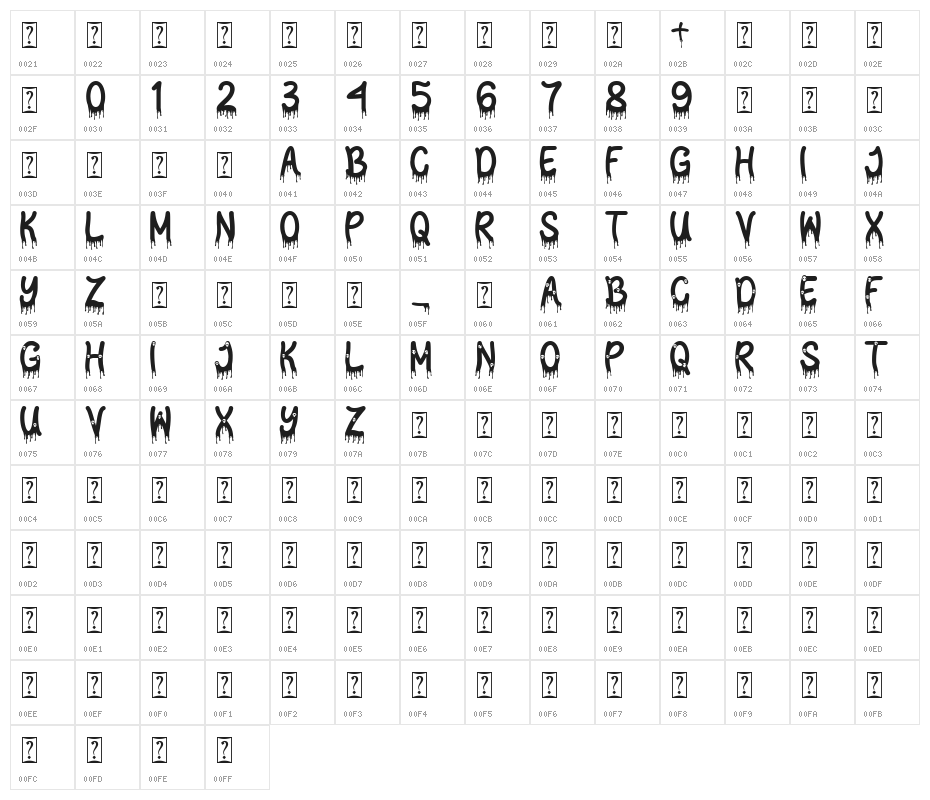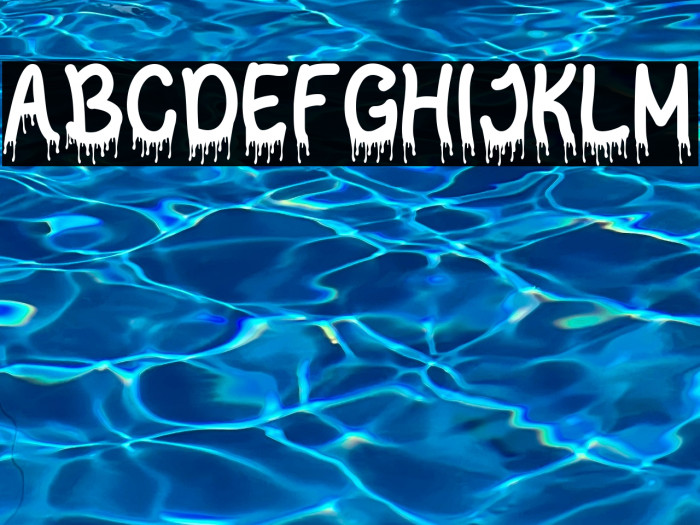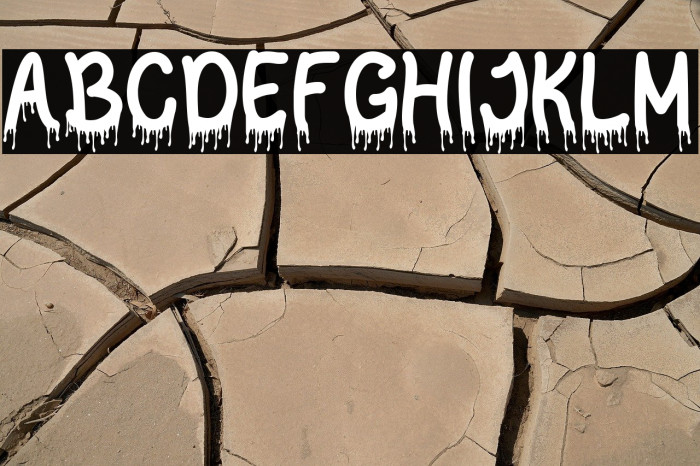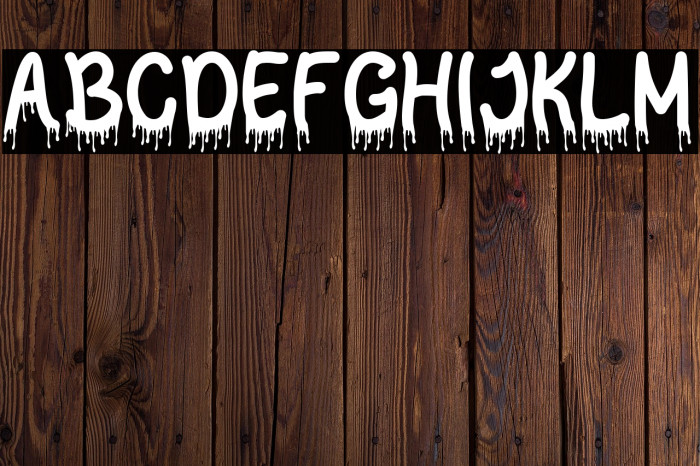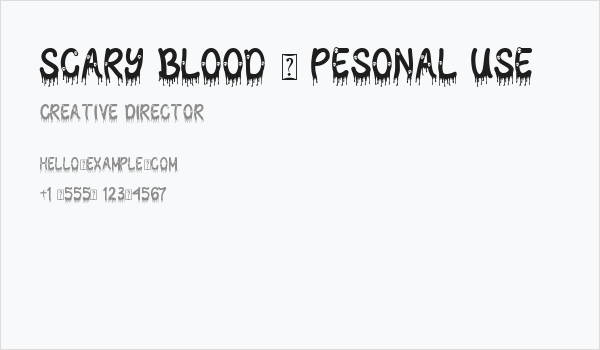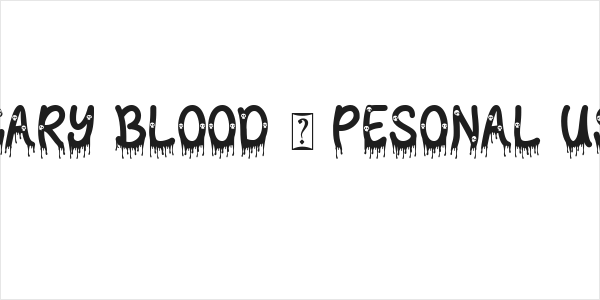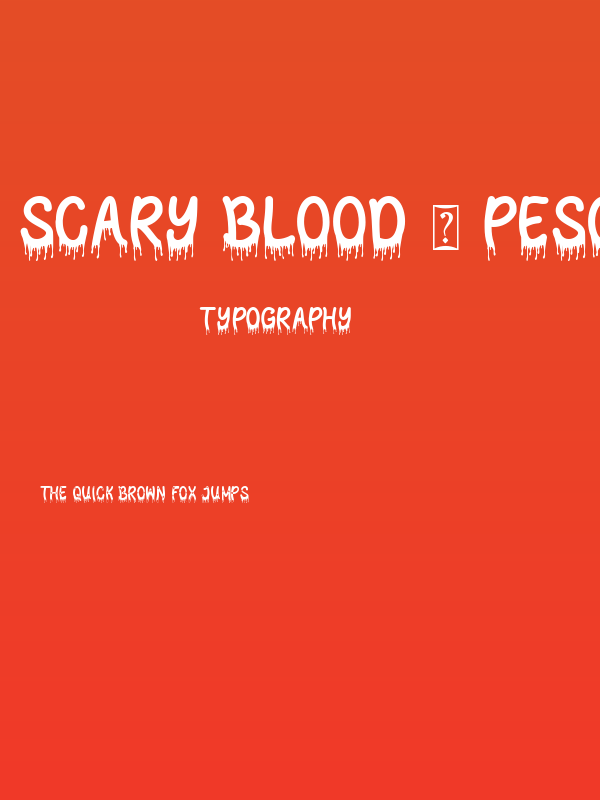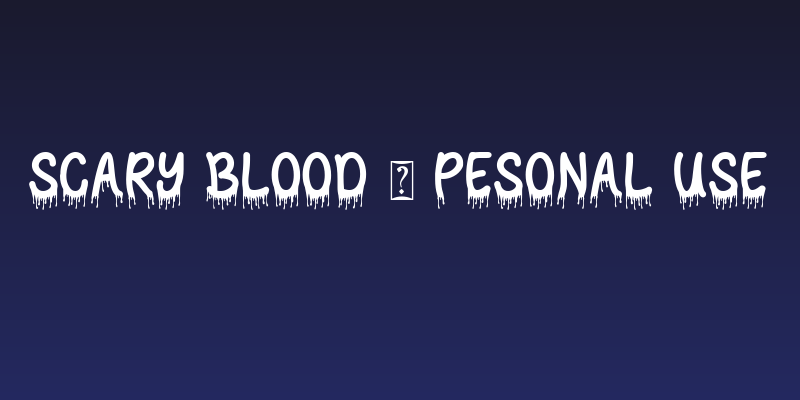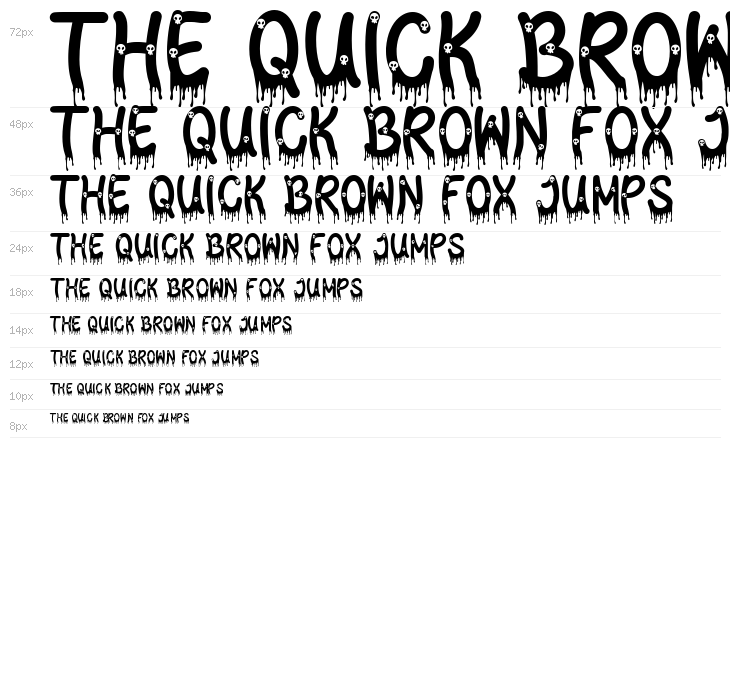
Scary Blood - Pesonal Use Font
Scary Blood - Pesonal Use Description
This font features a unique and eerie design, with each character appearing as if it is dripping with a liquid, reminiscent of blood or slime. The uppercase and lowercase letters maintain a consistent style, with exaggerated curves and elongated strokes that enhance the dripping effect. The numbers follow the same theme, ensuring a cohesive look across all characters. This font is perfect for creating a spooky or horror-themed atmosphere, making it ideal for Halloween events, haunted house promotions, or any project that requires a chilling aesthetic. The special characters, although limited, also carry the same dripping motif, adding to the overall unsettling vibe.
Proposed ProjectsHalloween invitations, horror movie posters, haunted house flyers, themed party decorations.